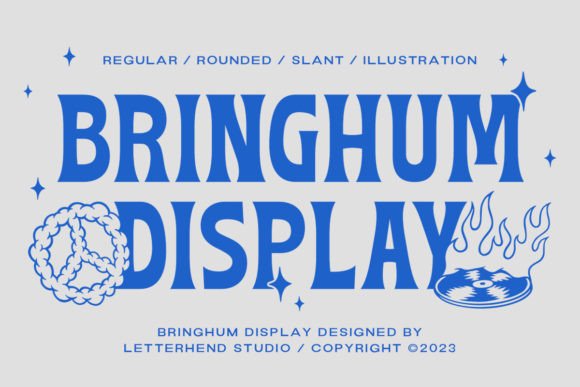
Journey back to the 90s with Bringhum Display Font, a typeface that effortlessly captures the era's vibrant and nostalgic spirit. Experience the allure of retro aesthetics, where bold lines dance with playful curves, invoking a sense of playful energy. Bringhum is not just a font; it's a gateway to a world of creativity, an invitation to explore the depths of design possibilities.
Immerse yourself in the versatility of Bringhum. Its bold strokes command attention, making it ideal for logos that demand to be noticed. Unleash your imagination and elevate your designs with the accompanying cartoon illustrations, adding a touch of whimsy and charm. This font is a chameleon, morphing seamlessly into a myriad of formal formats. From the elegant curves of wedding invitations to the crisp lines of business cards, Bringhum adapts with grace and sophistication.
Envision your designs adorned with Bringhum's retro elegance. Picture magazine covers that pop with personality, book covers that exude classic charm, and greeting cards that radiate warmth and cheer. Bringhum breathes life into packaging, transforming ordinary products into objects of desire. Let your creativity soar with fashion and makeup designs that ooze uniqueness, stationery that sparks inspiration, and novels that transport readers to another era.
Bringhum is a boundless font, ready to amplify your message across a spectrum of advertising materials. Billboards, posters, and flyers come alive with the font's bold presence, capturing the attention of your audience and leaving a lasting impression.
Embrace the nostalgia, the boldness, and the endless possibilities of Bringhum Display Font. Let your creativity flourish, and embark on a journey of design exploration, knowing that Bringhum will be your steadfast companion, guiding you towards remarkable creations.